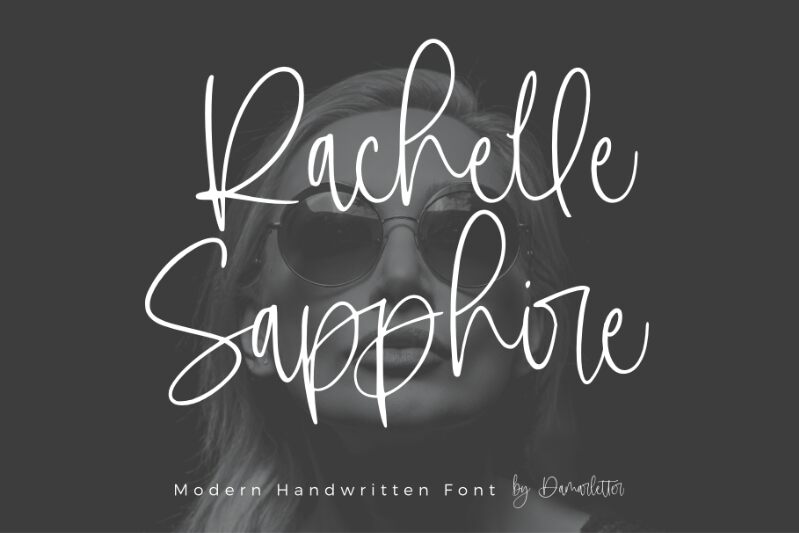
Rachelle Sapphire, crafted by the talented Damarletter, is a delightful modern handwritten font that exudes elegance and sophistication.
With its extra-light weight, this typeface is perfect for creating captivating wedding invitations, luxurious branding materials, and ethereal editorial designs. Its graceful curves and unique letterforms bring a touch of refinement to any project. Rachelle Sapphire adds a sense of enchantment to romantic book covers, whimsical greeting cards, and dreamy social media graphics.
Let your creativity soar as you incorporate this font into your next project, leaving a lasting impression on your audience.